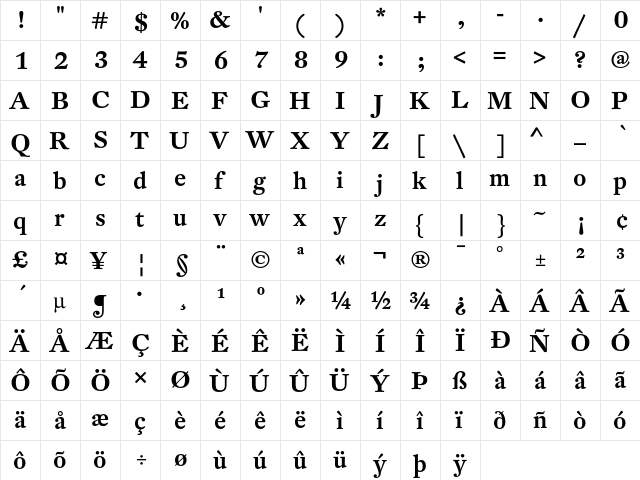
DTL Fleischmann T Medium Font Preview
DTL Fleischmann T Medium
DTL Fleischmann T Medium Font Details
Design Context for DTL Fleischmann Typeface
DTL Fleischmann is a composed and adaptable typeface that performs quietly and consistently across a wide range of design contexts.